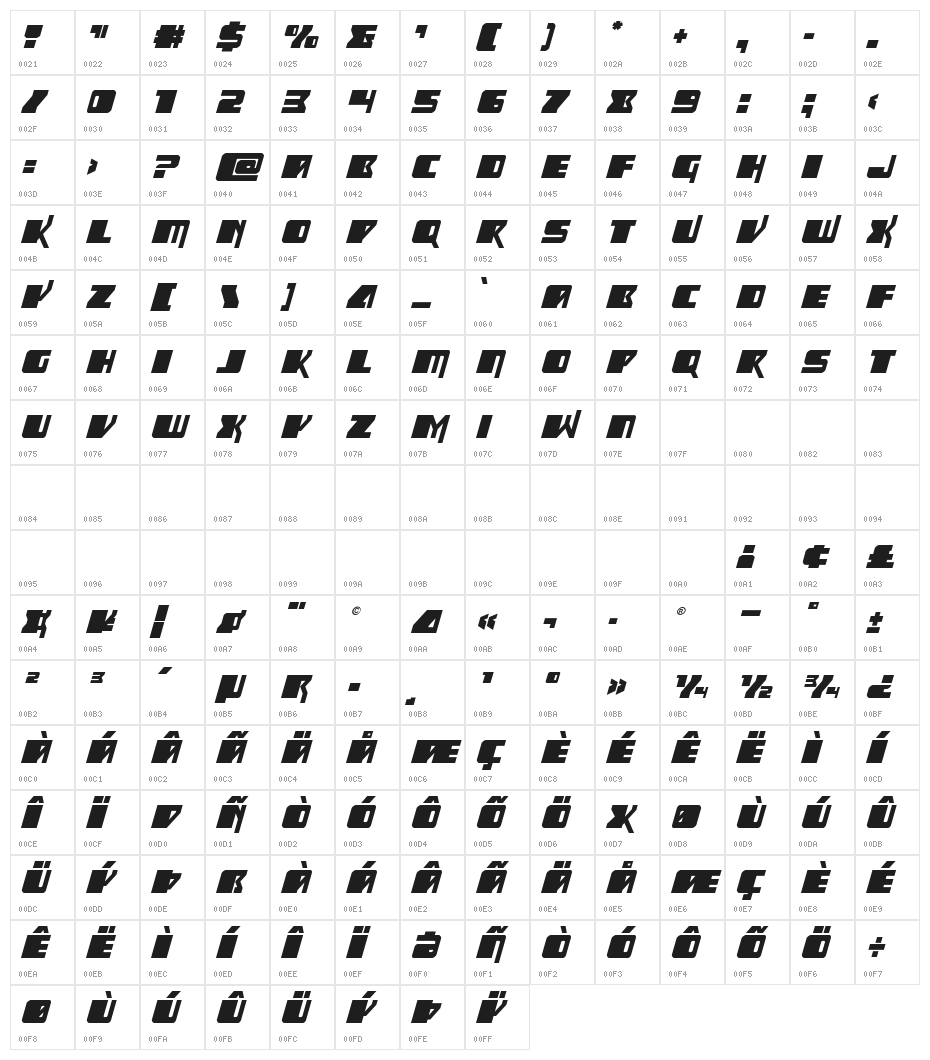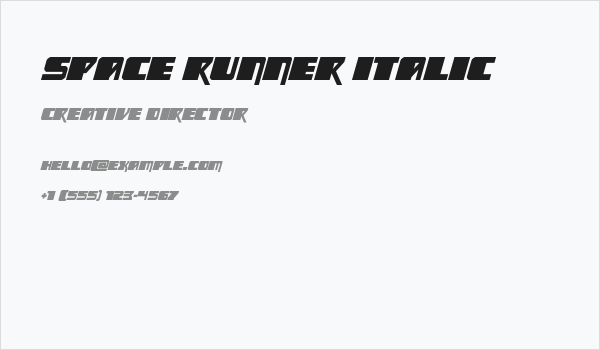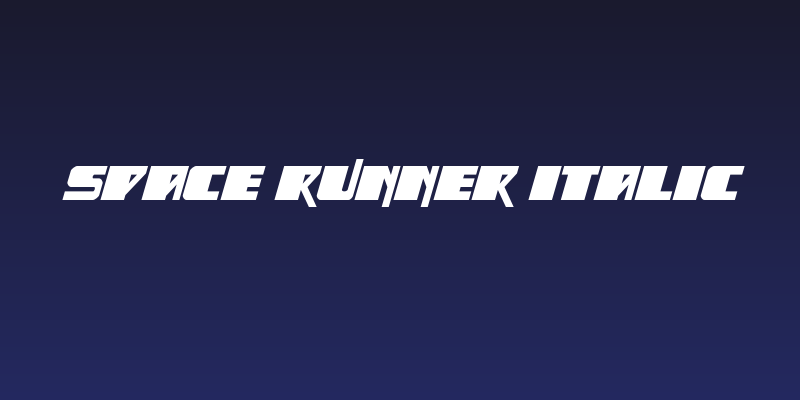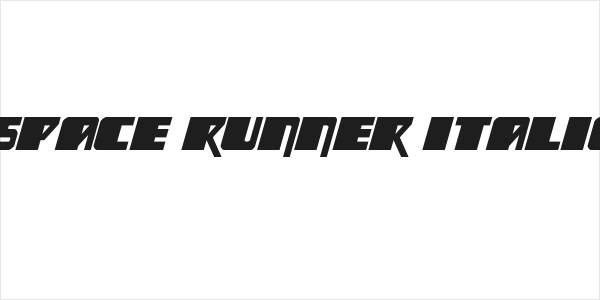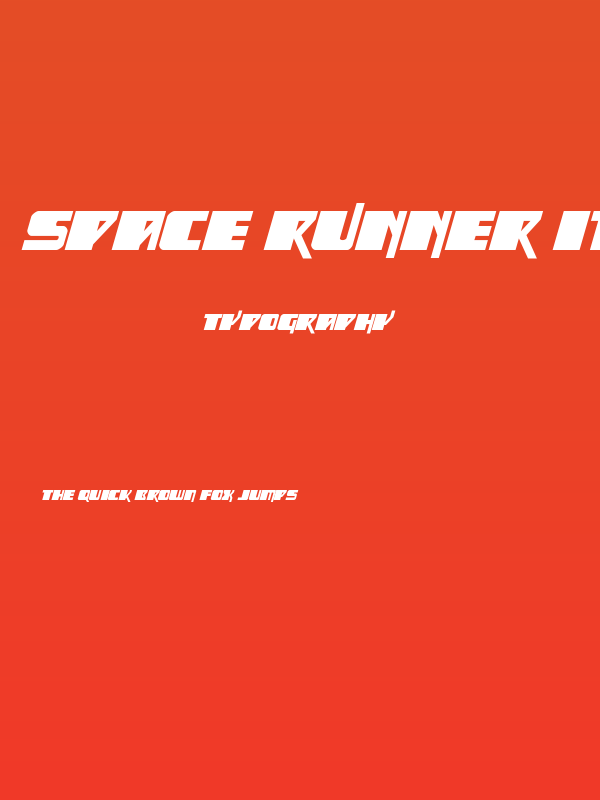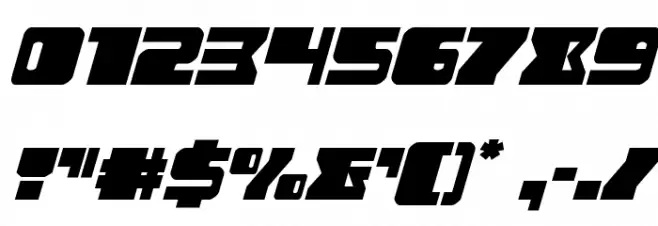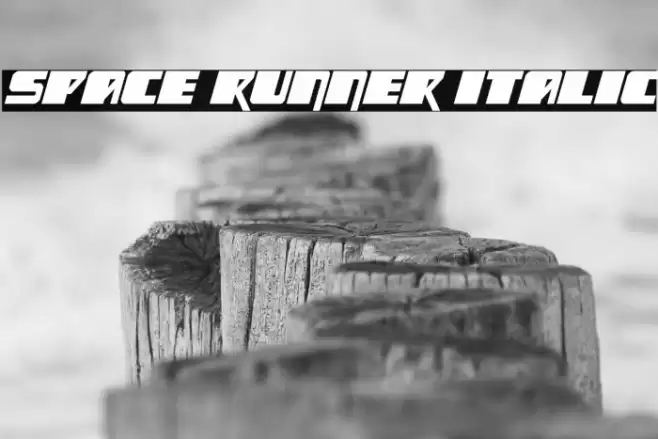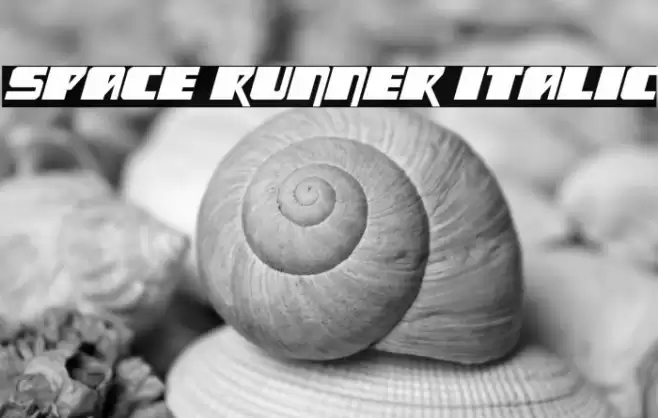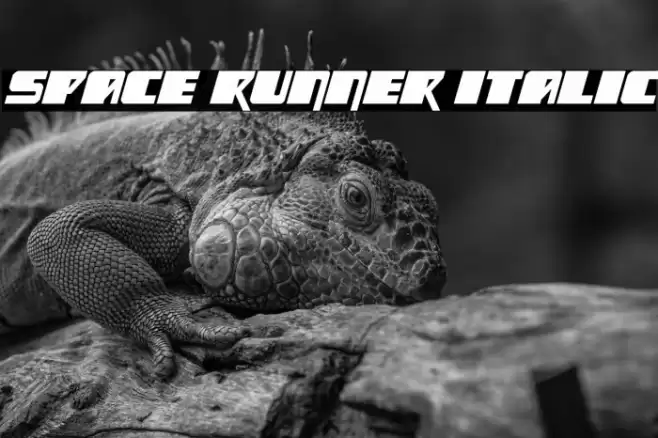
Space Runner Italic Font
This font features a bold, futuristic design with sharp angles and a distinct italic slant, giving it a dynamic and forward-moving appearance. The characters are wide and blocky, with a consistent stroke thickness that emphasizes its boldness. The angular cuts and geometric shapes contribute to a high-tech, modern aesthetic. The uppercase and lowercase letters maintain a uniform style, enhancing readability while retaining a unique character. The numerals and special characters are designed to match the overall theme, making it suitable for a cohesive visual presentation.
| Proposed Projects | Ideal for sci-fi themed projects, technology branding, video game titles, and futuristic posters. |